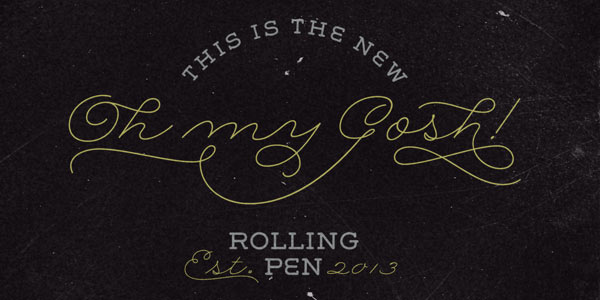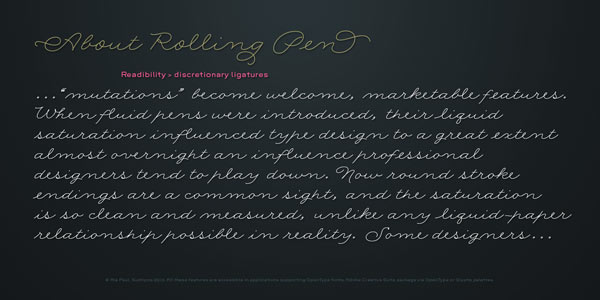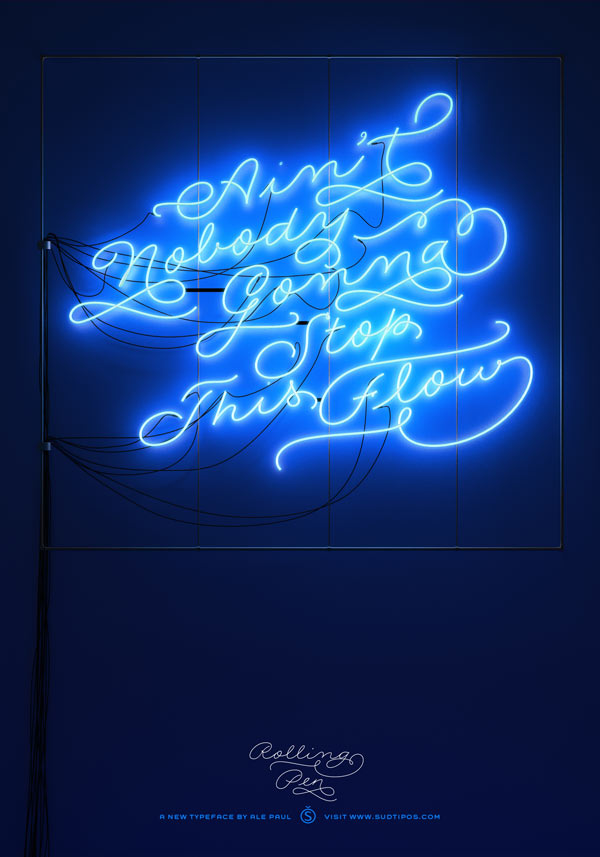
Rolling Pen Font Family.
Alejandro Paul‘s fascination for the history of writing, calligraphy, and pop technology inspired him to create the Rolling Pen script font family (Type Foundry: Sudtipos). The decorative typeface offers round stroke endings and a flowing shape. Rolling Pen’s OpenType collection is packed with alternates, swashes, and ligatures. This typeface is truly an outstanding eye catcher, which works great for pop culture typography and neon designs.